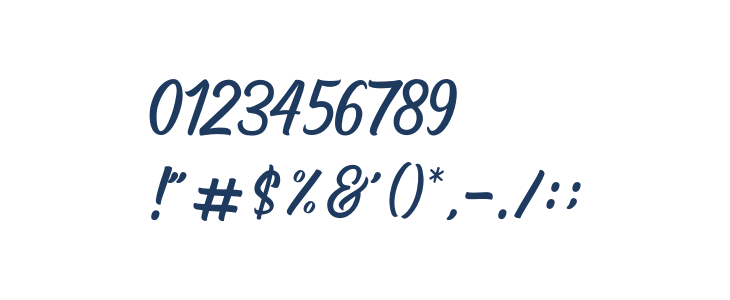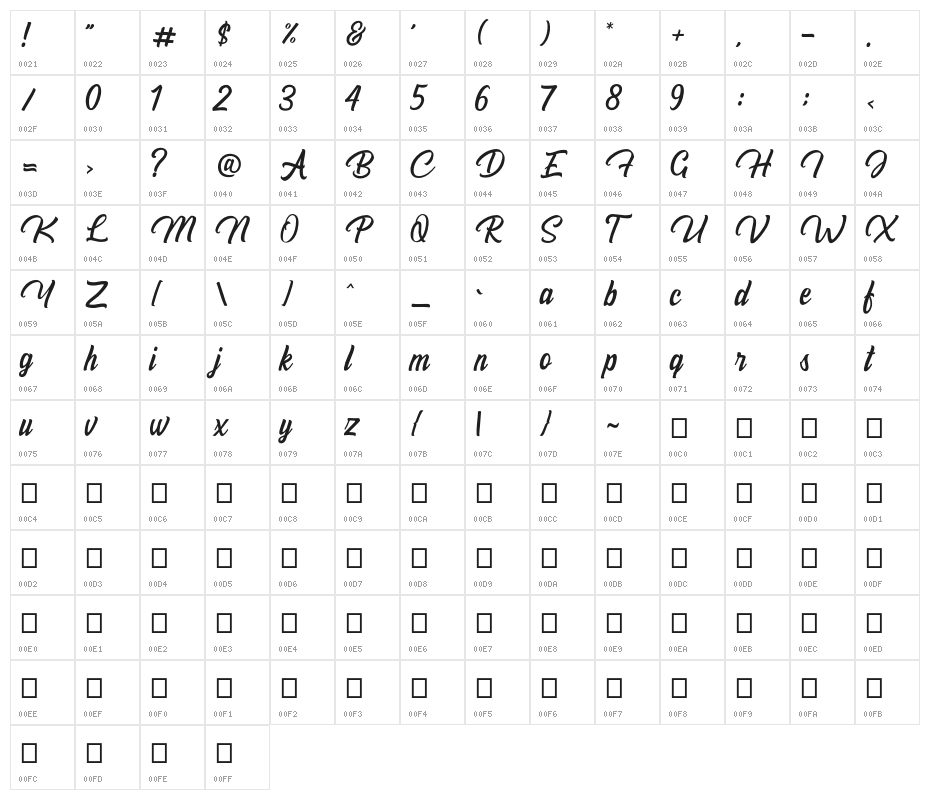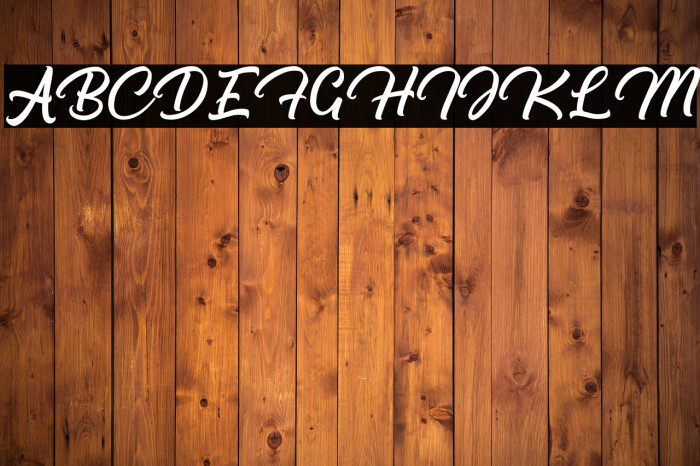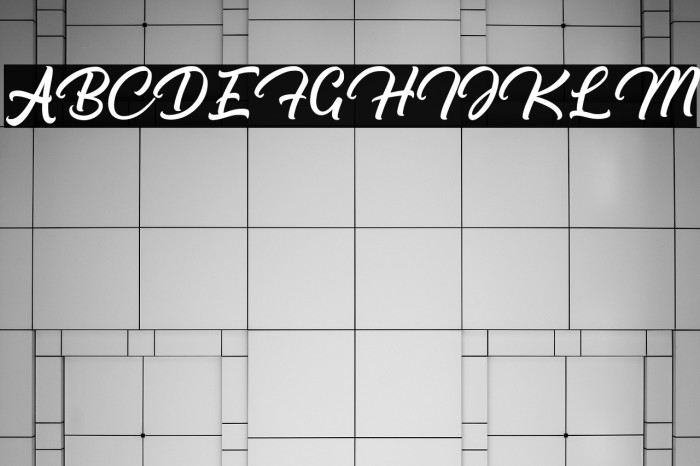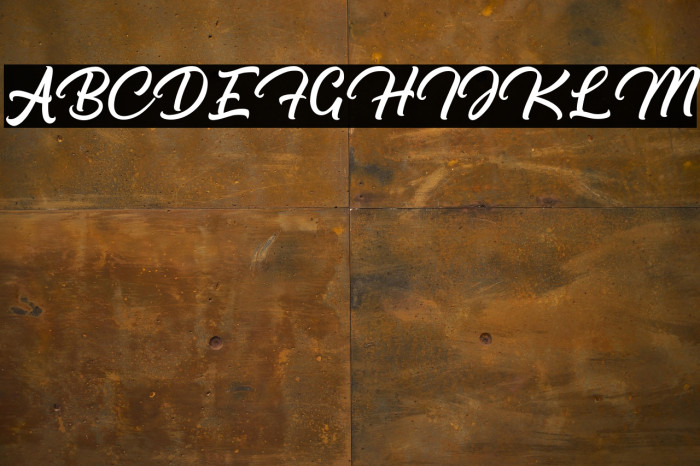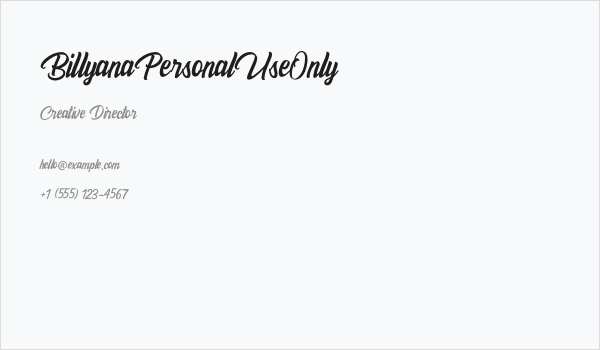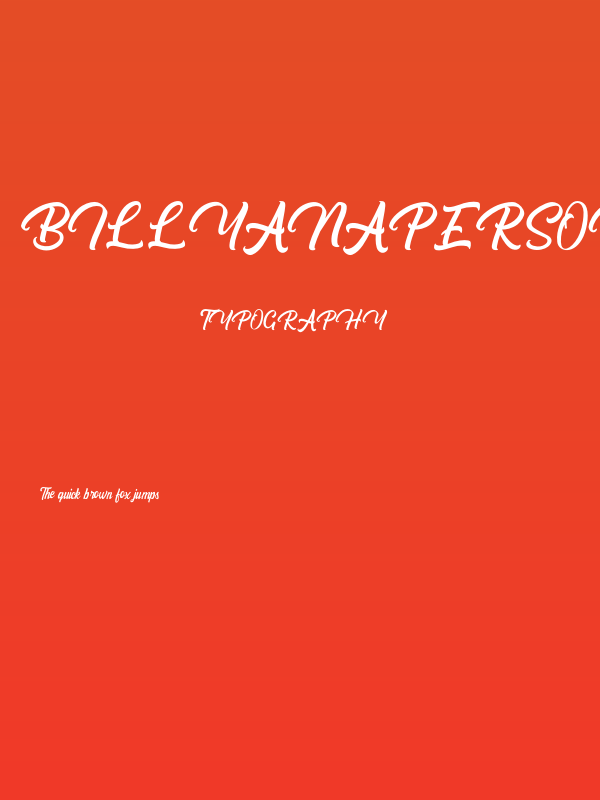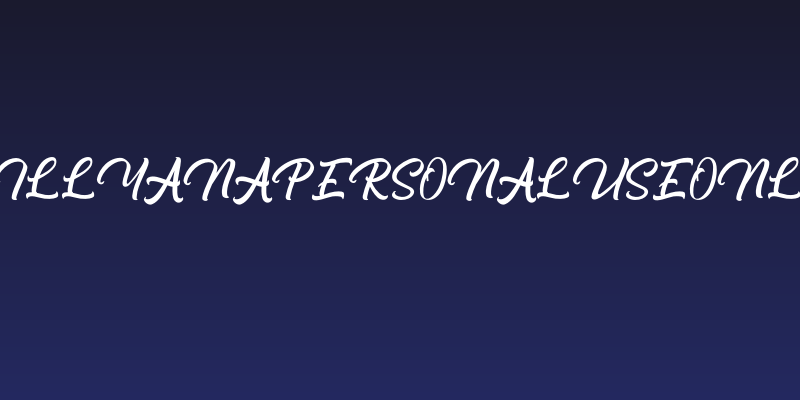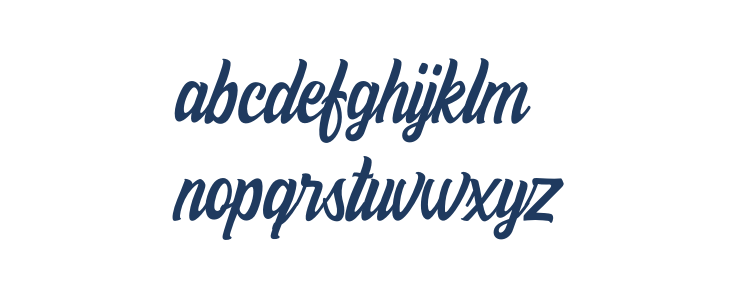
BillyanaPersonalUseOnly Font
BillyanaPersonalUseOnly Description
This font features a flowing, cursive style with a handwritten appearance. The uppercase letters are elegantly connected, giving a sense of fluidity and grace. The lowercase letters maintain a consistent slant, enhancing the script-like quality. The numerals are bold and slightly rounded, complementing the overall aesthetic. Special characters are designed with the same attention to detail, ensuring a cohesive look across all glyphs. This font is ideal for projects that require a personal touch, such as invitations, greeting cards, or branding materials.
| Use Case | Headlines, Logos, Decorative text |
| Proposed Projects | Ideal for invitations, greeting cards, personal branding, and decorative projects. |